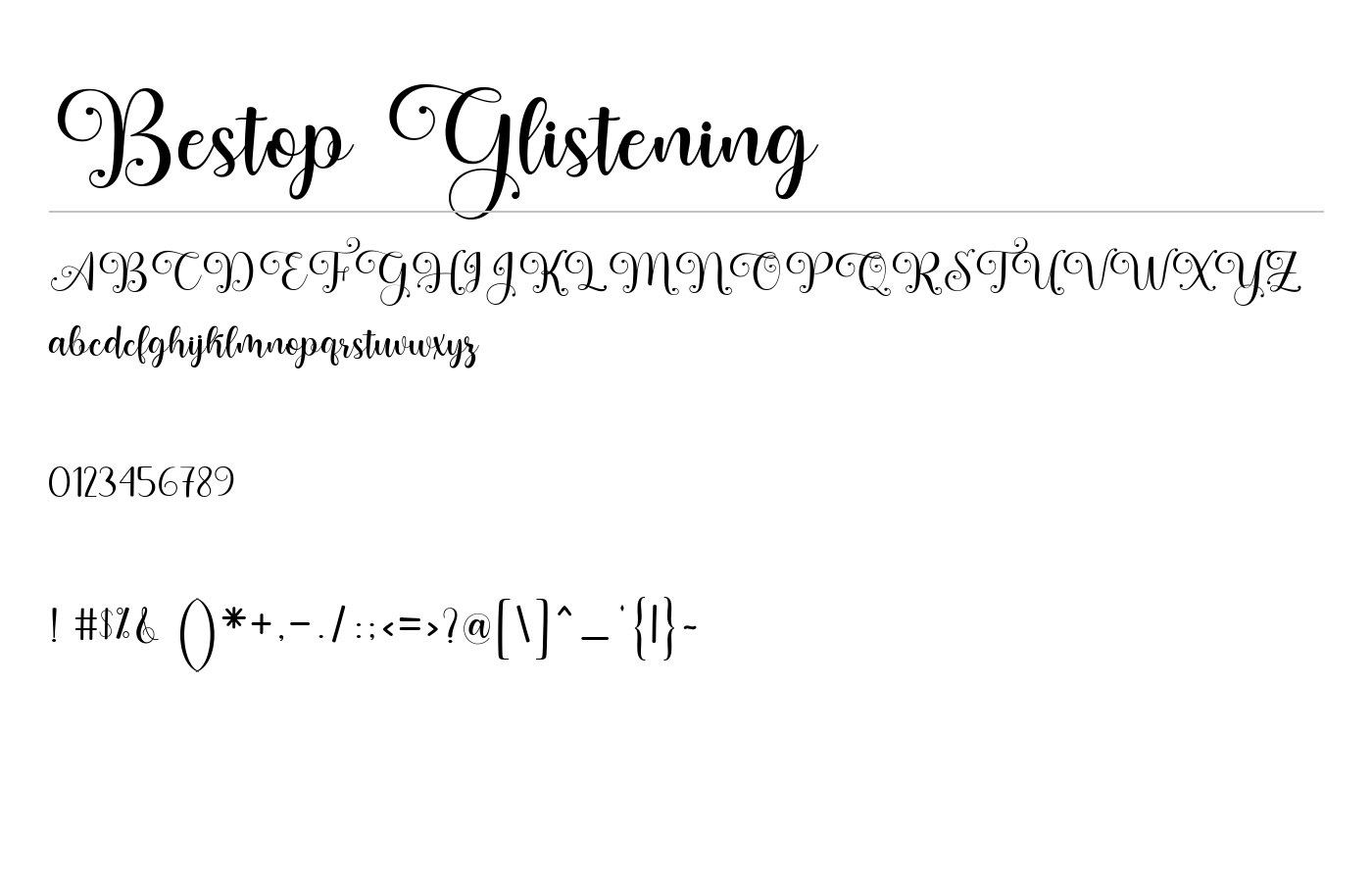
Bestop Glistening is an elegant, decorative script font with high contrast between thick and thin strokes, featuring delicate swirls and flourishes especially in its uppercase letters. Its refined and playful style makes it perfect for luxurious branding, wedding invitations, and feminine packaging where a touch of sophistication and charm is desired. The font’s intricate details shine in larger sizes, ideal for headlines and logos that need a graceful, eye-catching appeal.
Bestop Glistening Font
About Bestop Glistening Font
| Font family | Bestop Glistening Font |
| Designer | Muhammad Nazar |